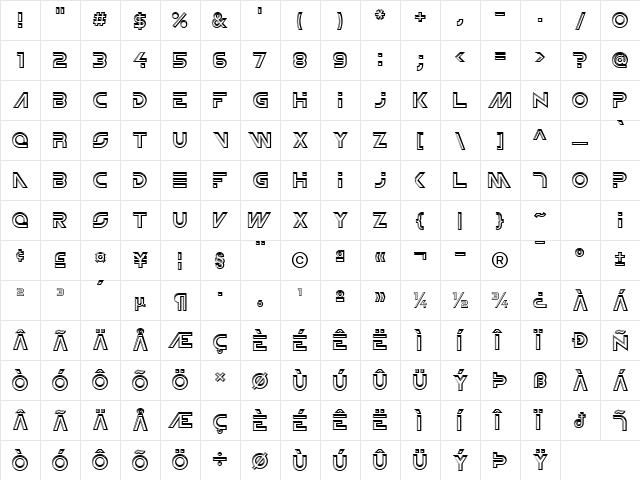
Newtron ICG Open Regular
Design Context for Newtron ICG Open Typeface
Newtron ICG Open is a composed and adaptable typeface that performs quietly and consistently across a wide range of design contexts.